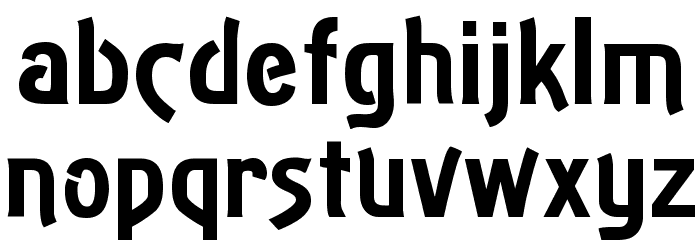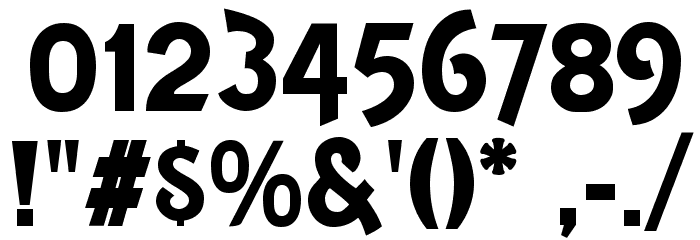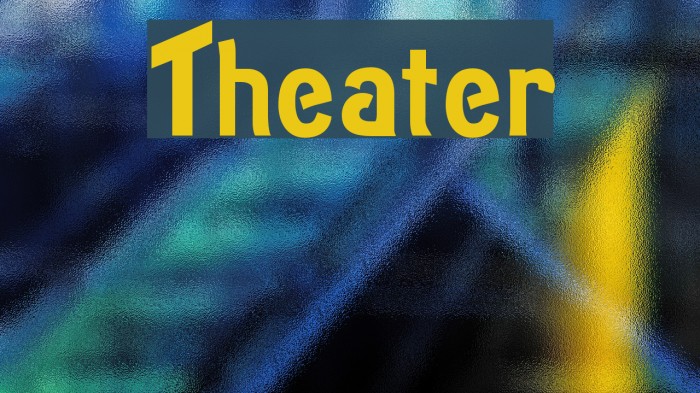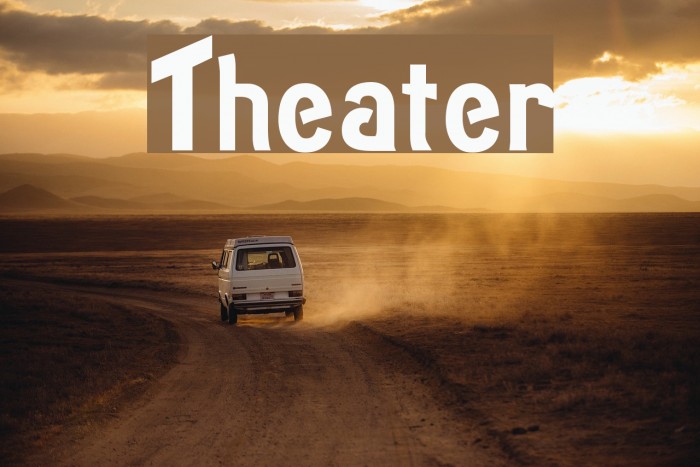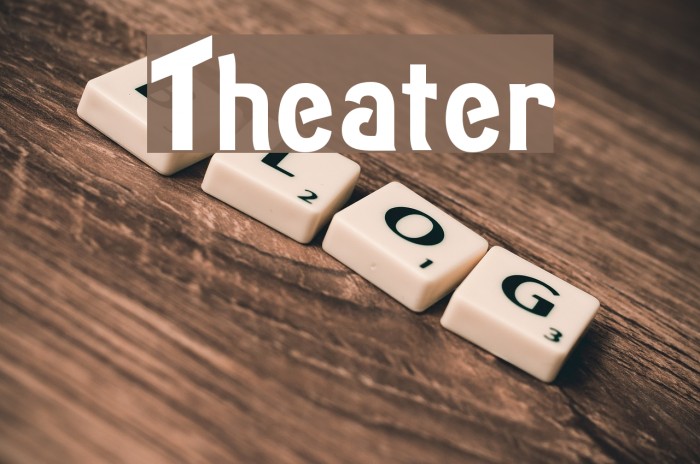
Theater Font
This font features a bold and dynamic style with a theatrical flair, characterized by its thick strokes and unique, slightly angular letterforms. The uppercase letters exhibit a strong presence, while the lowercase letters maintain a consistent style with a touch of playfulness. The numbers are bold and easily readable, complementing the overall design. Special characters are creatively designed, adding to the font's distinctive personality. The font's boldness and unique style make it suitable for attention-grabbing headlines and creative projects.
A bold, dynamic font with theatrical flair and unique angular letterforms.
- Proposed Projects: Ideal for theater posters, creative branding, eye-catching headlines, and artistic designs.